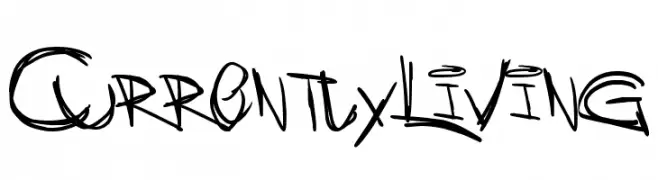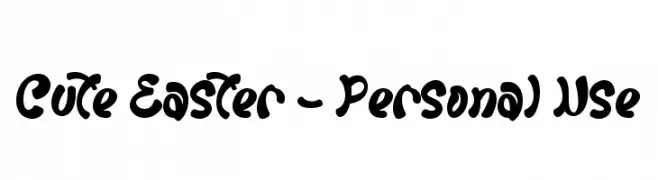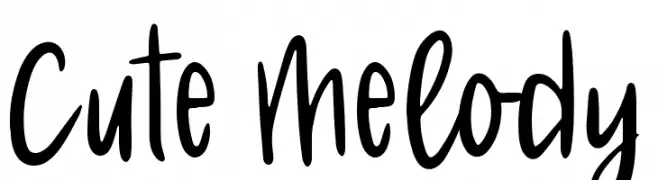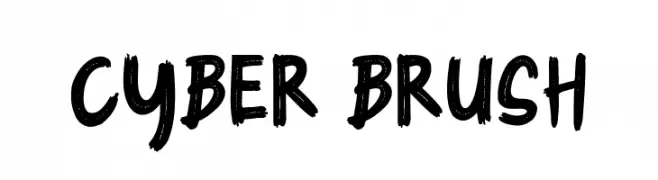
( Fonts by weknow - Wino S Kadir )
A decorative font with arrow-themed embellishments, offering a tribal aesthetic.
A playful, doodle-style font with whimsical decorative elements.
( TwoNineFive - Maximillian Limpo )
A geometric, decorative font with diamond-shaped cutouts and bold, angular lines.
( www.southype.com )
A playful set of emoticon-like symbols with various facial expressions.
( Fonts by Yoga Letter )
A playful, bold, and rounded font with a hand-drawn feel.
A playful, handwritten font with bold, irregular strokes and a whimsical charm.
A bold, brush-style font with an energetic and hand-drawn appearance.
A bold, futuristic font with rounded edges and a geometric design.
( Fonts by weknow - Wino S Kadir )
A bold, futuristic font with sharp, angular edges and a tech-inspired design.